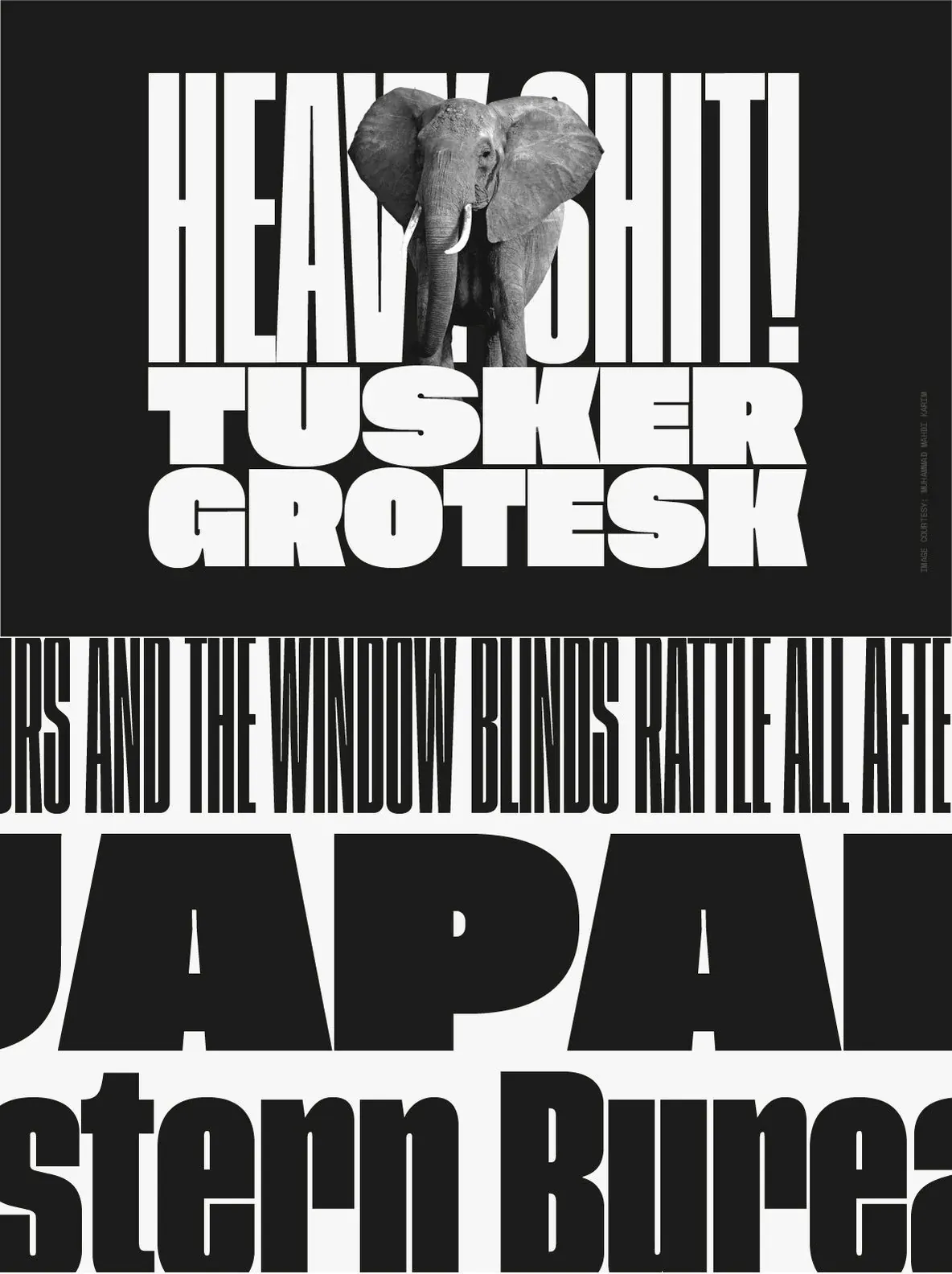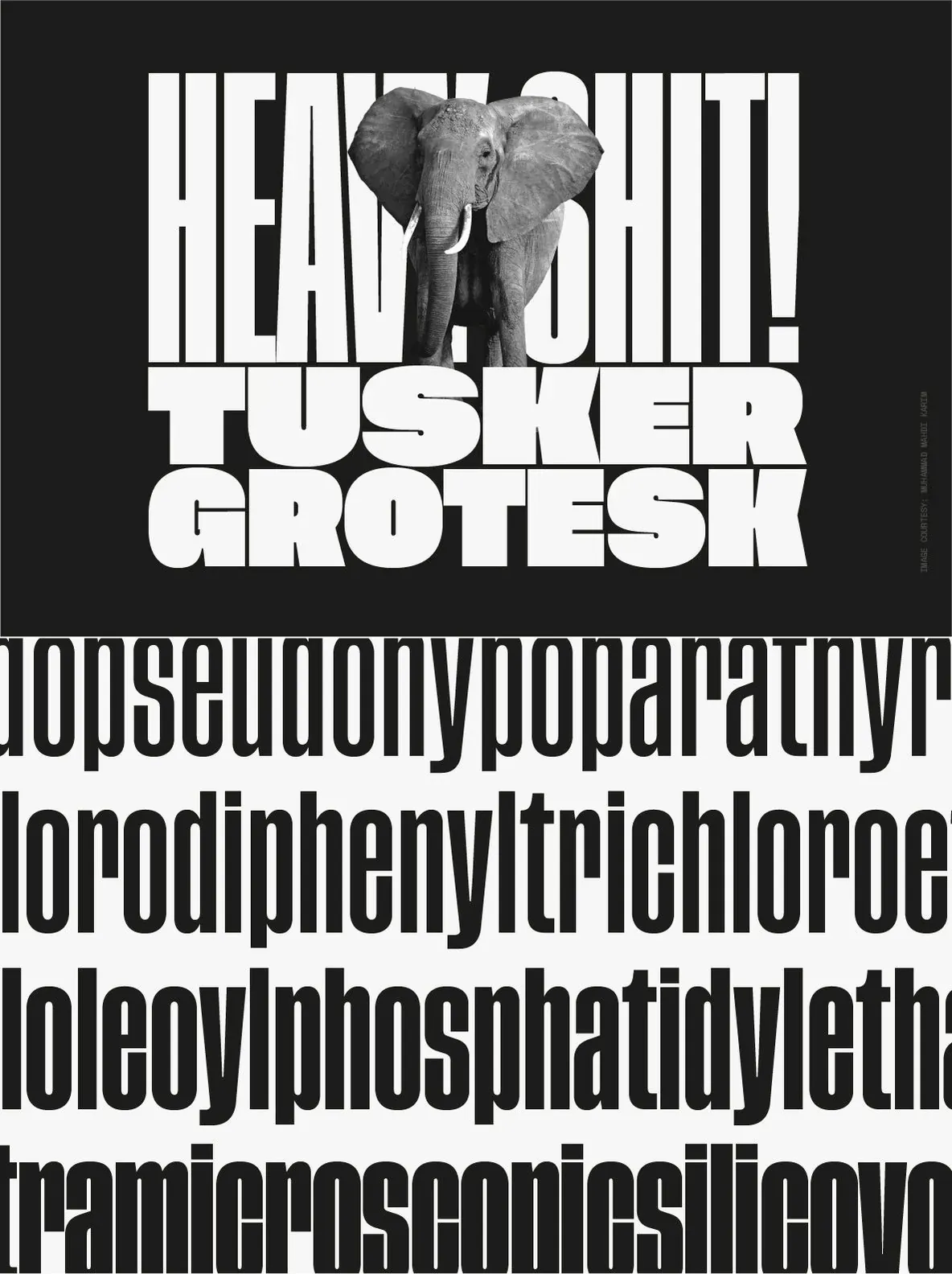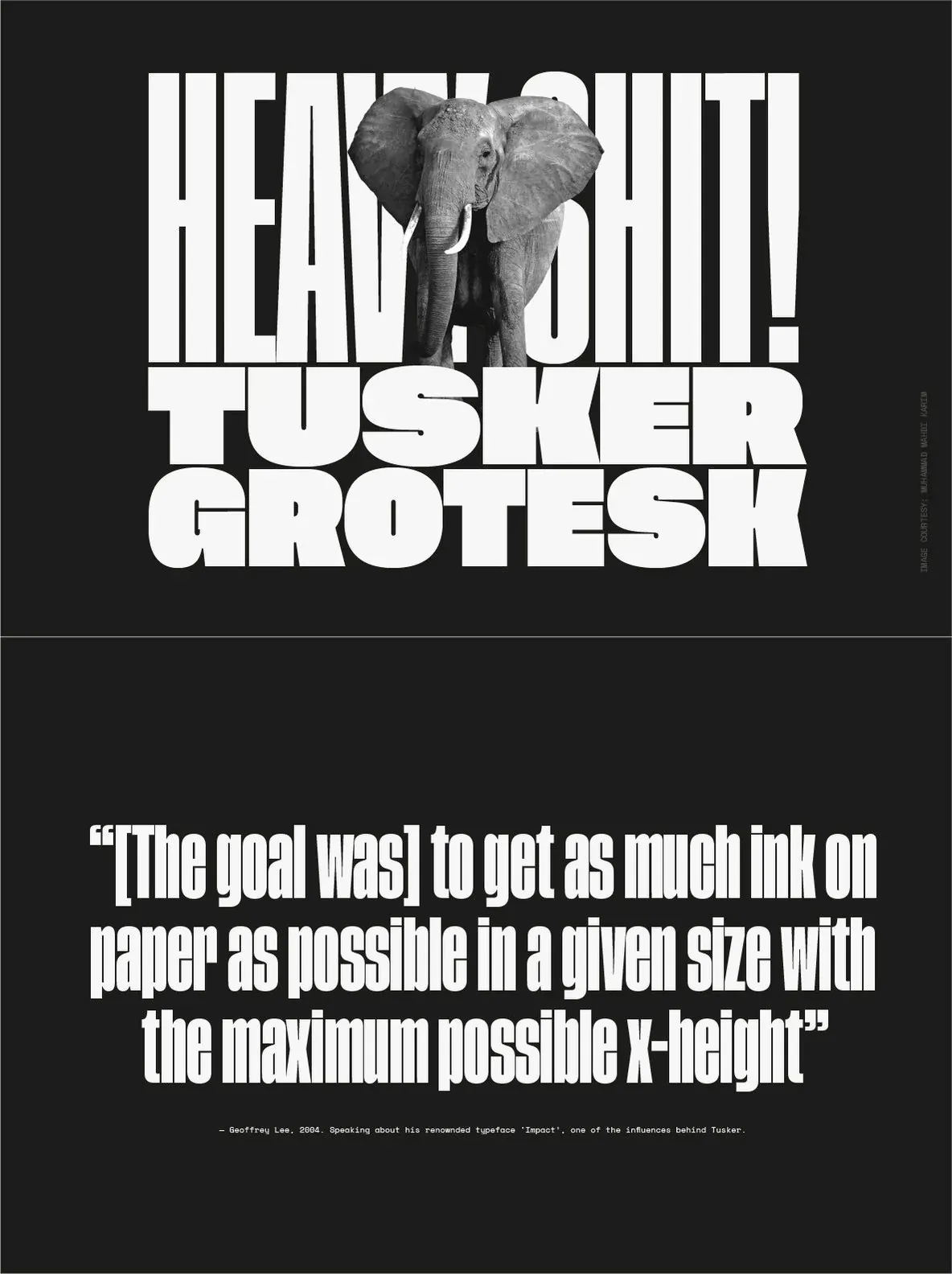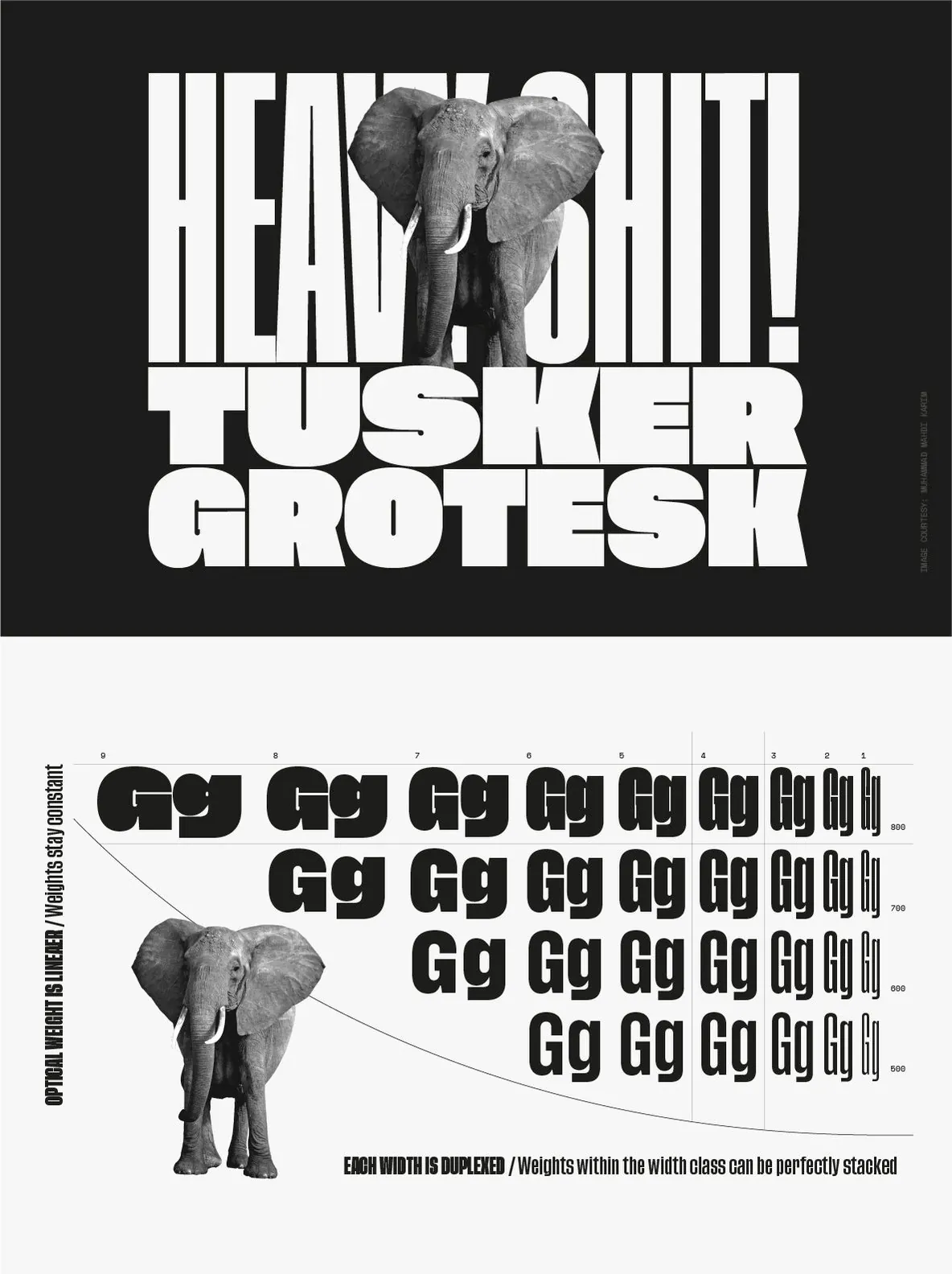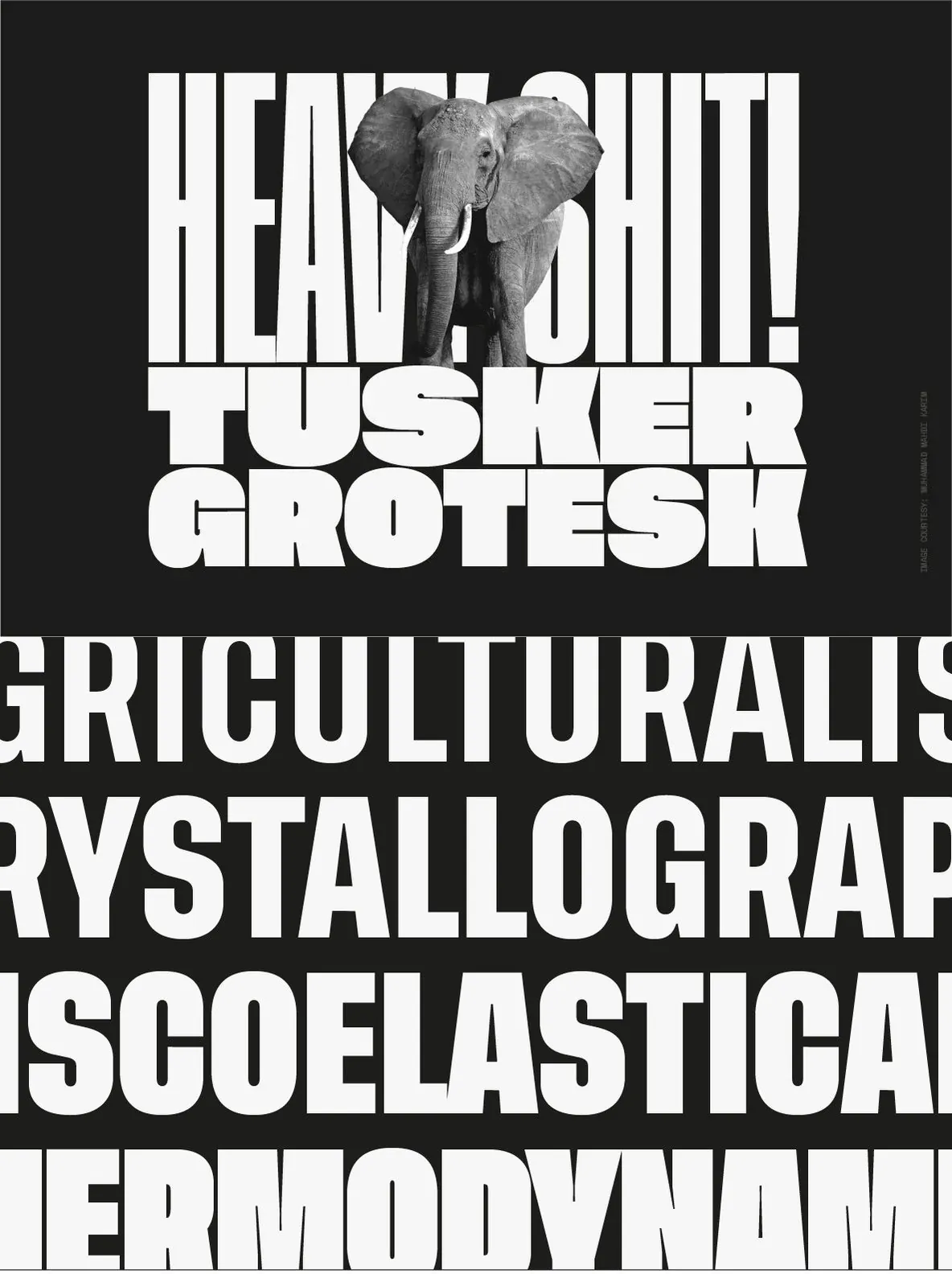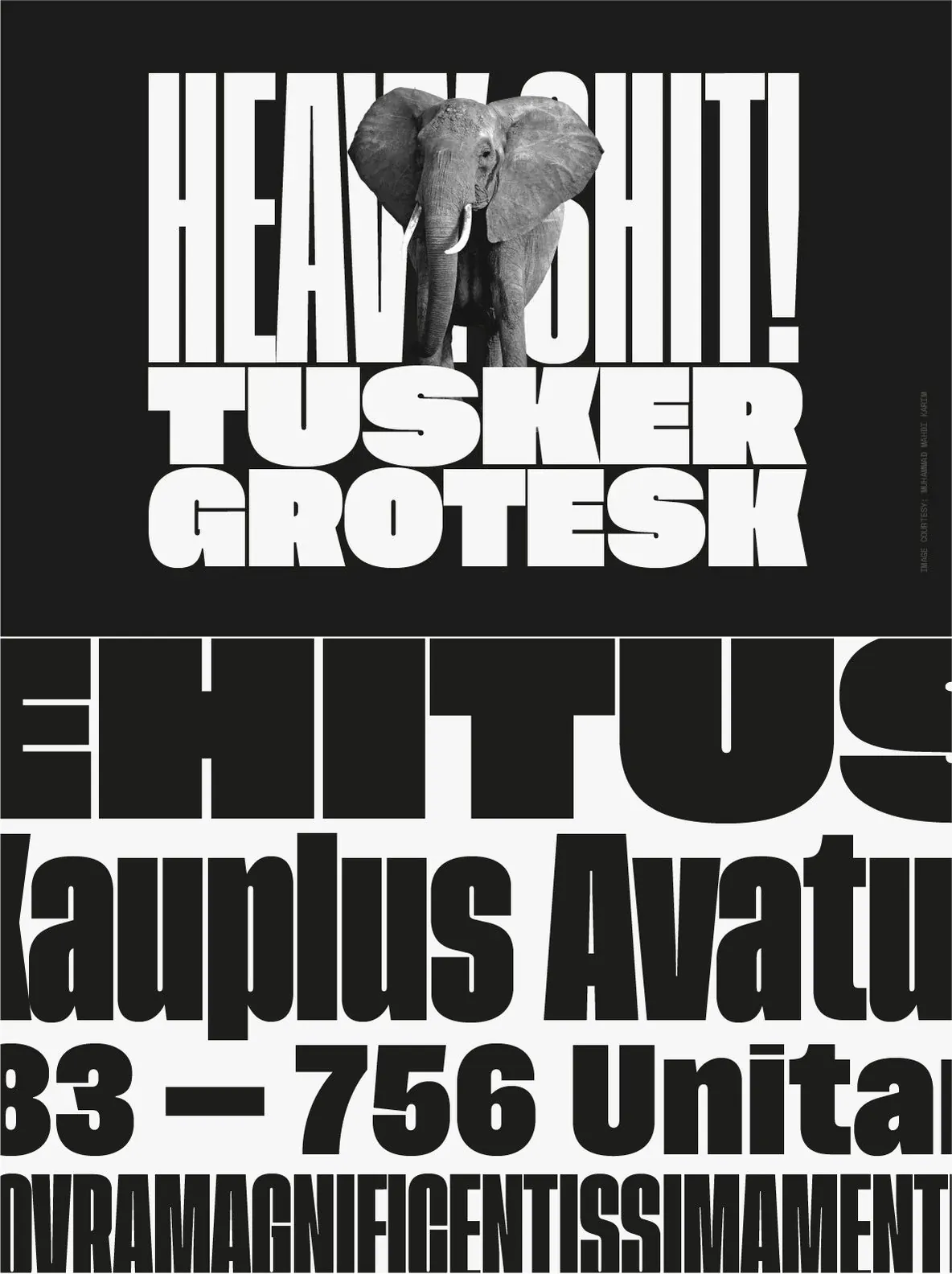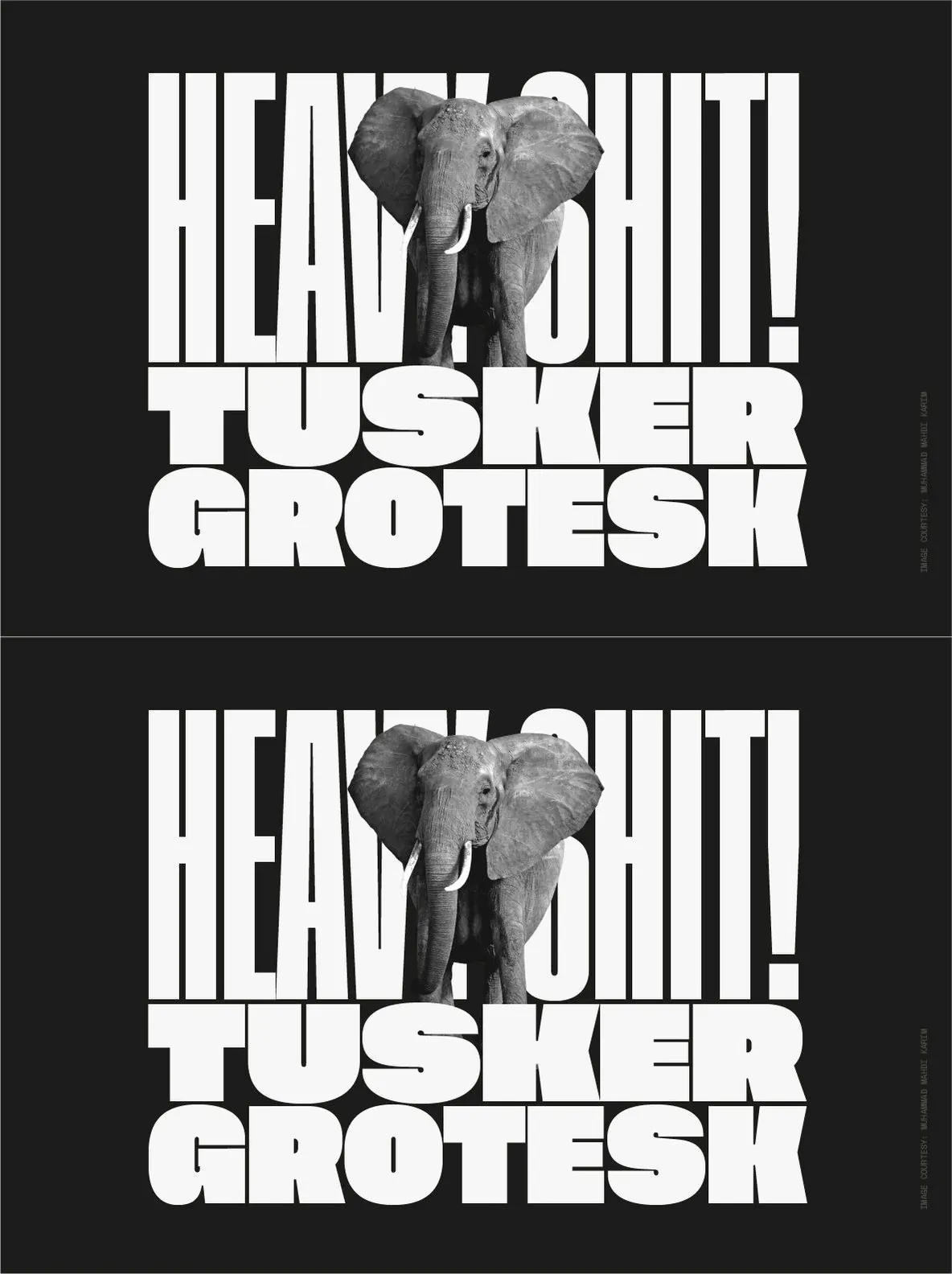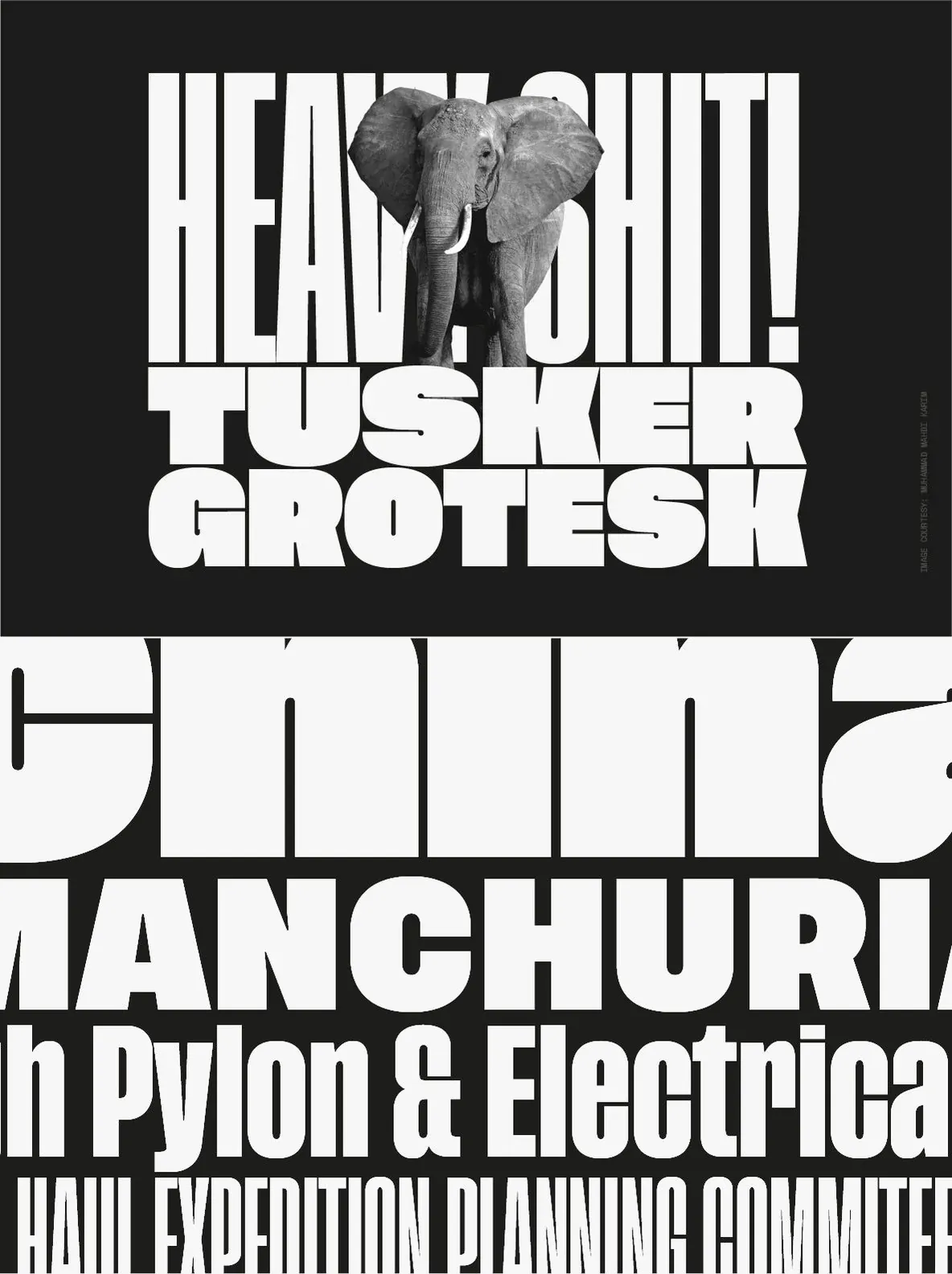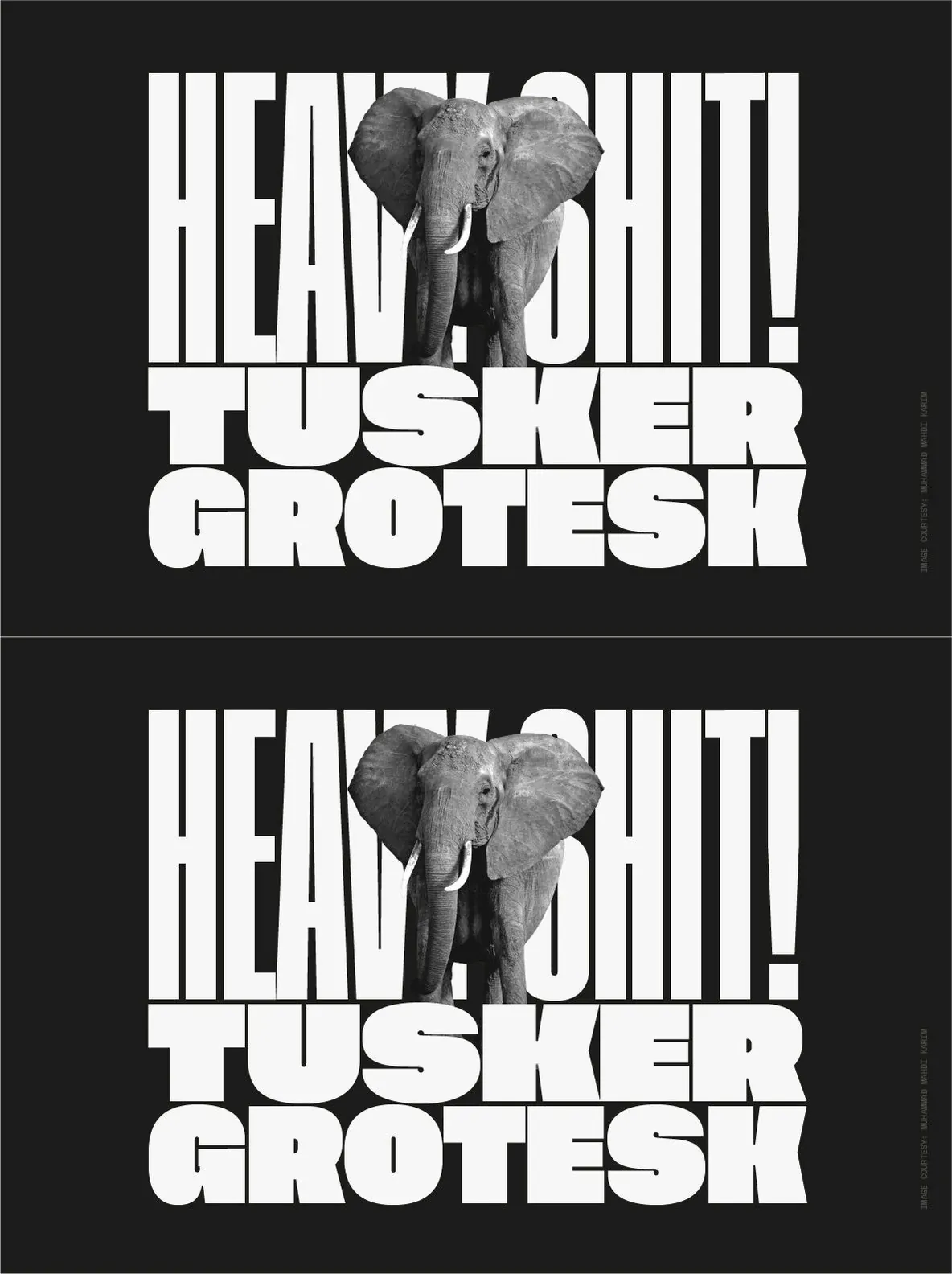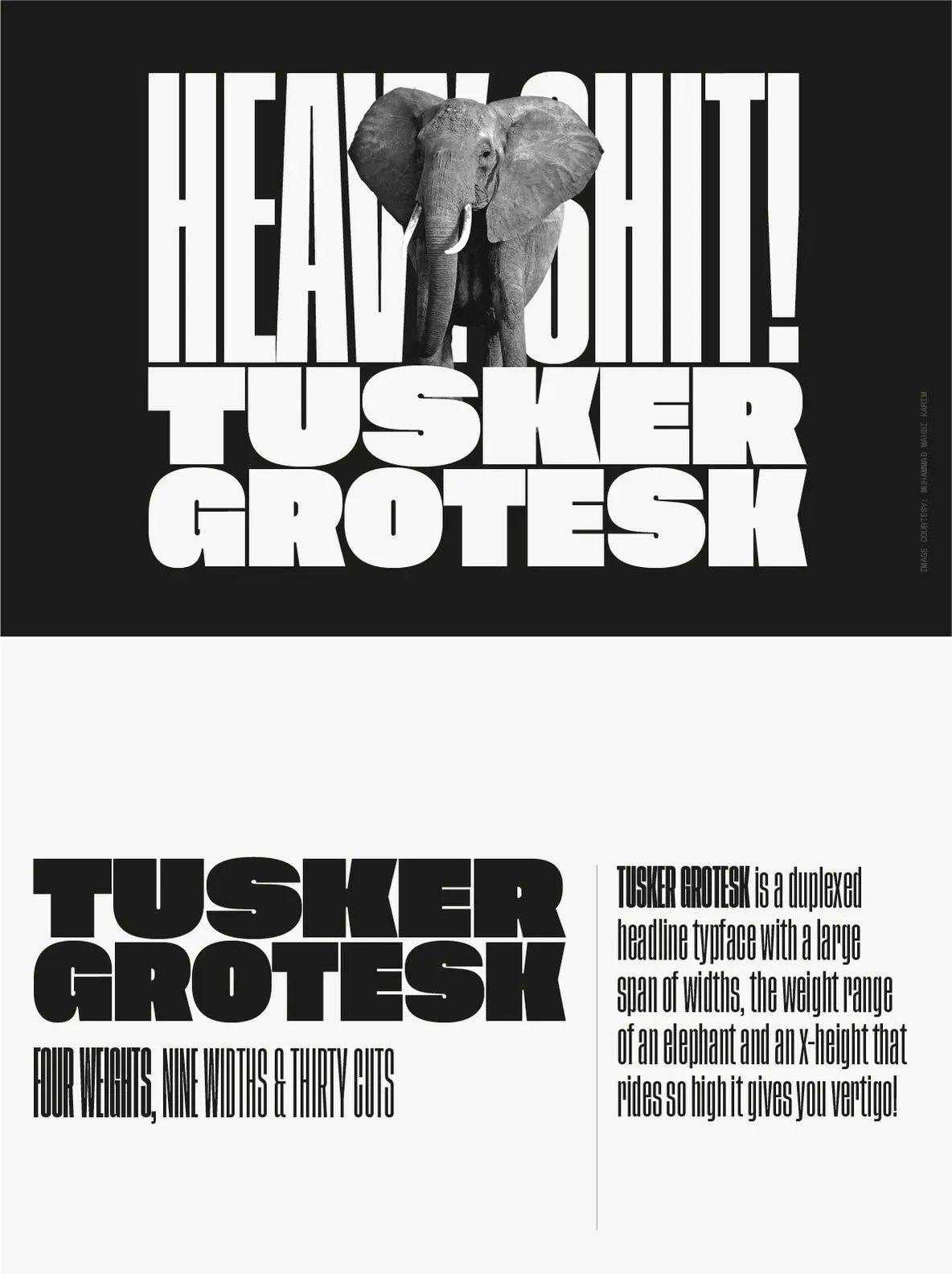
Tusker Grotesk is a headline typeface designed for robust and high-impact use. The initial inspiration for Tusker came from postwar typefaces like Haettenschweiler, Impact and Helvetica Inserat which use very high x-heights.
Other influences in the condensed end of the Tusker family are old grotesques like Folio Extra Condensed and Stephenson Blake Elongated Sans No.1 with their flat terminals and closed-up apertures. Then as the widths in Tusker grow, the lettering takes some more inspiration from gothic style sans such as Inland Type’s Title Gothic No.8, while maintaining the optical weight established in the narrow end of the family.
Each width set is duplexed, stackable and is ideal for headlines, logos and bold attention-grabbing editorial design. Tusker has extended latin coverage ideal for western, central and eastern European languages.